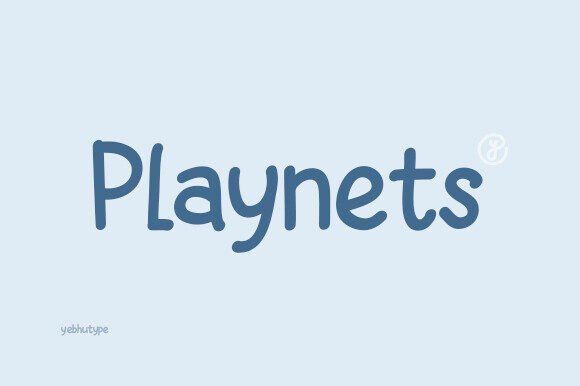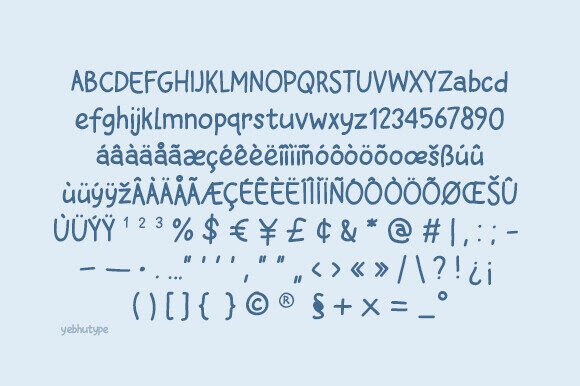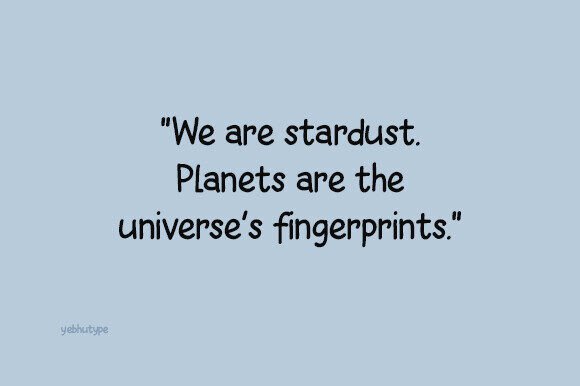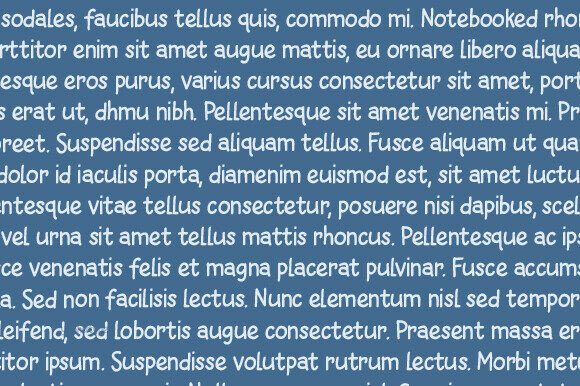
Playnets Font: A Cute & Playful Display Font for Kids & Creative Designs
About the Playnets Font
Explore the possibilities with Playnets Font, a font that offers both beauty and functionality. Introducing Playnets, a lively and whimsical typeface designed to spark joy, creativity, and wonder in every character. Inspired by the boundless imagination of childhood and the playful spirit of adventure, Playnets is more than a font—it’s a gateway to storytelling, learning, and fun. With its cheerful curves, bouncy rhythm, and friendly design, this typeface is perfect for projects that aim to captivate young hearts and minds while resonating with the young at heart.
Playnets excels in headlines, children’s book titles, playful branding projects, and packaging for toys or children’s products. Its cheerful curves also work well in short, impactful social media posts or promotional materials targeting a younger demographic. However, its whimsical nature makes it less suitable for body text, lengthy articles, or user interfaces requiring high readability. The playful forms might hinder efficient information processing in those contexts.
Pairing Playnets with a clean sans-serif like Open Sans for body copy creates a balanced and readable design. For a more sophisticated look, consider pairing it with a classic serif typeface such as Garamond for a contrast between playful and refined elements. Alternatively, a geometric sans-serif like Futura could provide a modern counterpoint to Playnets’ organic forms.
Playnets projects a friendly, approachable, and undeniably playful personality. Its overall mood is energetic and light-hearted, making it ideal for brands and projects seeking to convey a sense of fun and approachability.